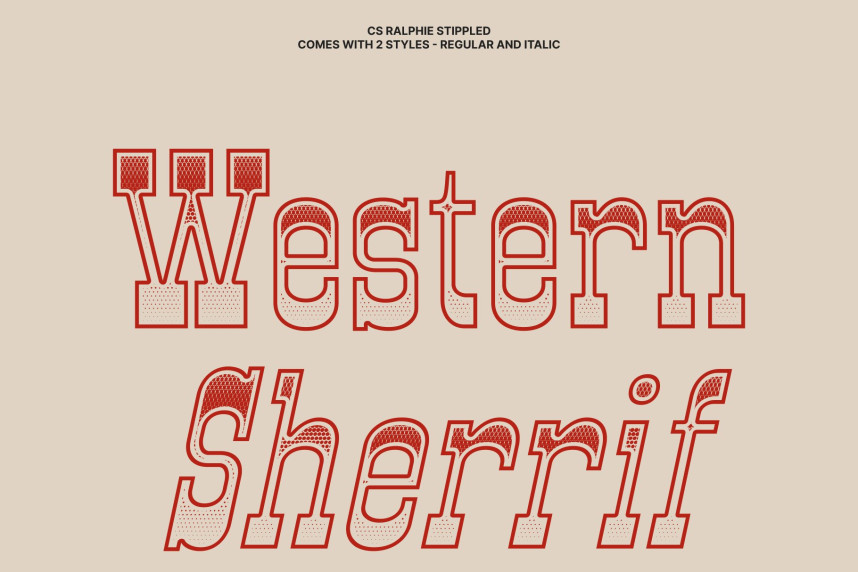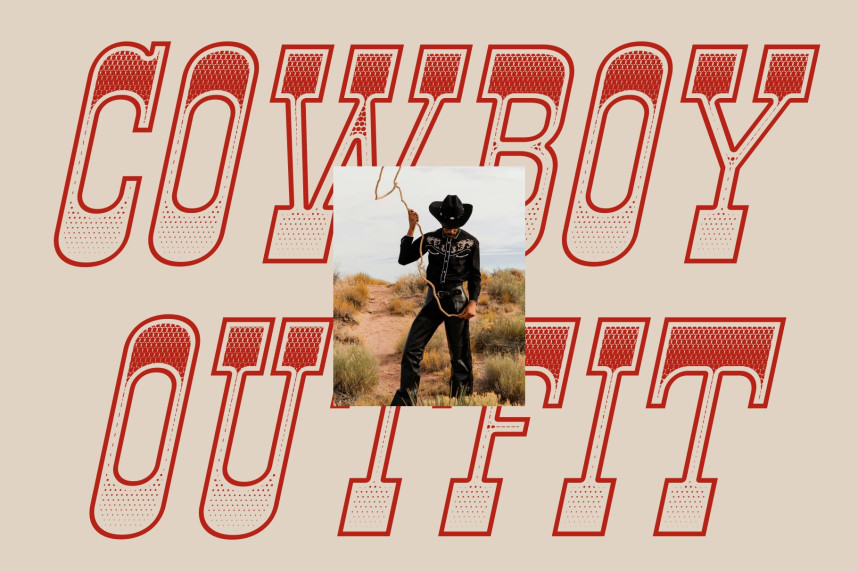
CS Ralphie Stippled Font
CS Ralphie Stippled Font – Western Display Font with Slab Serif and Reverse Contrast
Character Rooted in Old Western Spirit
This is a bold display font inspired by the rugged charm of the Old West. Drawing from frontier signage, saloon posters, and hand-painted lettering, it captures a raw and adventurous spirit. The strong slab serif structure gives it a grounded, dependable presence, while the stippled texture adds a handcrafted, weathered feel that enhances its vintage authenticity.